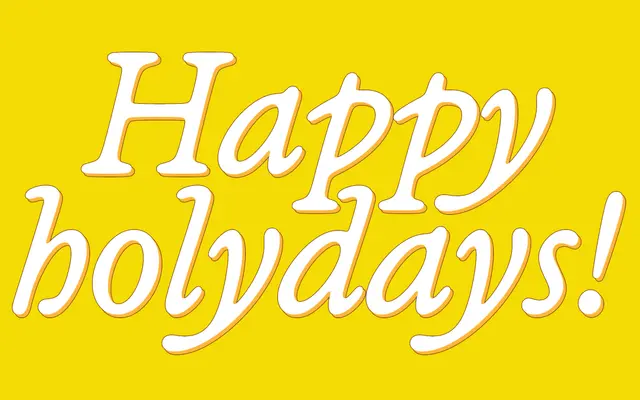
Ramboia
R-Typography · Rui Abreu · 2025
A French Old-Style serif by Rui Abreu that wraps fluid, angle-free curves around a skeleton drawn from Jean Jannon's 17th-century type.
Rather than reviving Jannon directly, Ramboia uses his classical skeleton as a hidden armature and traces loose, flowing curves over it, eliminating all angularity for a smooth and relaxed result. The family runs across five weights from Regular to Black, each with a matching italic, and is also available as a variable font. The combination of Old-Style proportions and genuinely soft letterforms makes it equally suited to editorial work that needs warmth and to display settings that call for something more joyful.
Rooted in the French Old-Style tradition with a skeleton inspired by Jean Jannon's 17th-century type, though the design deliberately softens all angles into fluid curves, making it a contemporary and playful reinterpretation of the Garamond/Jannon lineage.